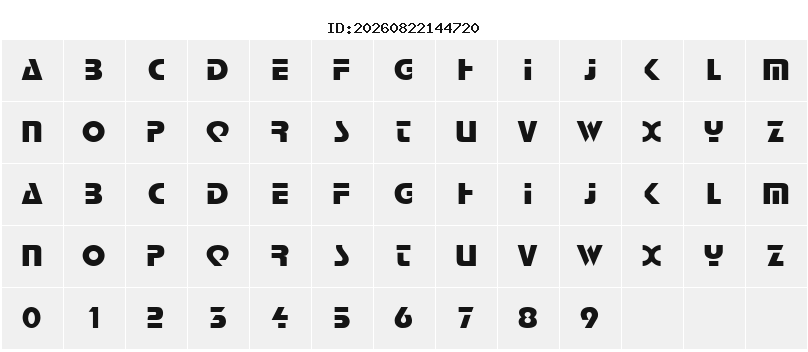
Scott Preview
• Font Name: Scott
• Font ID: Scott Plain
• Full Font Name: Scott
• PostScript Name: ScottPlain
• Character Count: 260
About Scott.ttf
Scott.ttf is a modern, elegant sans-serif font designed for ultimate readability and visual harmony. Perfect for branding, headlines, web design, and print materials.